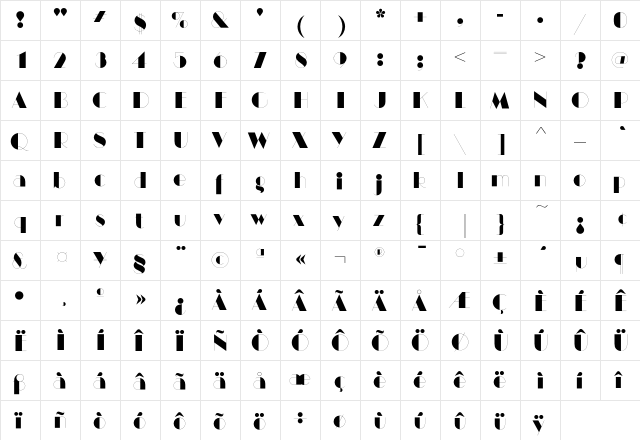
ManhattanEF Regular
Design Context for ManhattanEF Typeface
ManhattanEF is a composed and adaptable typeface that performs quietly and consistently across a wide range of design contexts.